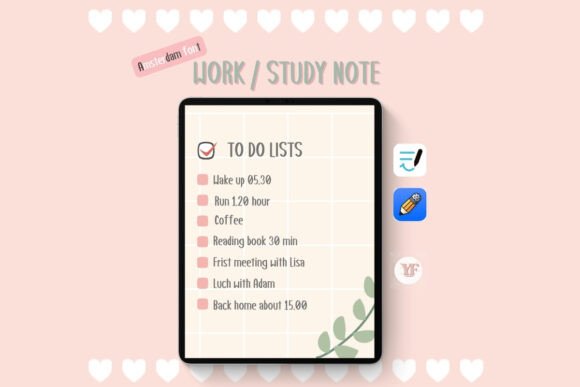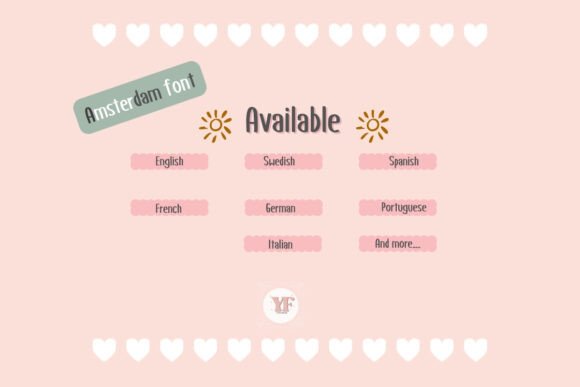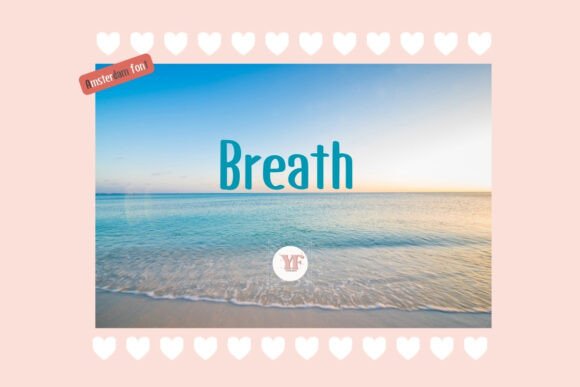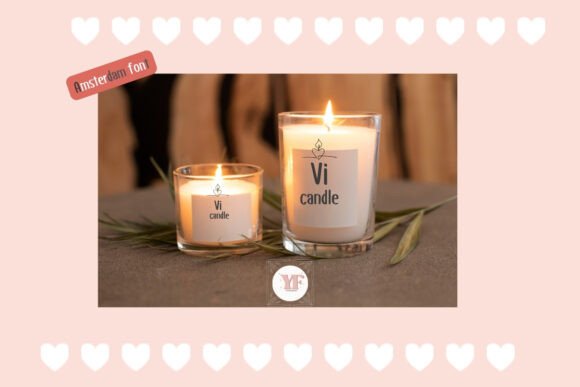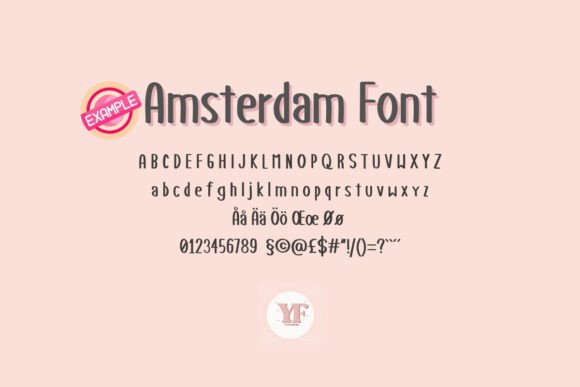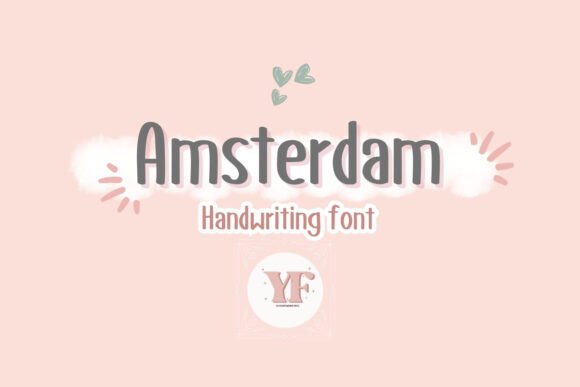
Discover the Elegance of Amsterdam Font: Elevate Your Notes and Writing
Are you tired of using the same old fonts for your notes, journals, and work documents? Look no further than the Amsterdam Font, a stylish handwriting font that is sure to elevate your writing to the next level. With its clean and sleek lines, Amsterdam is the perfect choice for students, professionals, and creatives looking to add a touch of elegance and sophistication to their everyday writing.
The Characteristics of Amsterdam Font
Amsterdam Font is a beautifully designed handwriting font that features pen-like strokes, giving it a natural and effortless look. Its clean and sleek lines make it easy to read, even in small sizes, making it perfect for note-taking, journaling, and planning. The font’s refined yet approachable style ensures that your writing looks professional and polished, whether you’re using it for educational purposes, work documents, or personal projects.
Why Choose Amsterdam Font?
So, why choose Amsterdam Font over other fonts? Here are just a few reasons:
• Readability: Amsterdam Font is designed to be easy to read, even for extended periods of time. Its clean lines and pen-like strokes reduce eye strain, making it perfect for students and professionals who spend hours reading and writing.
• Elegance: Amsterdam Font adds a touch of elegance and sophistication to your writing, making it perfect for formal documents, journals, and planners.
• Versatility: Amsterdam Font is versatile and can be used in a variety of settings, from educational to professional, and even personal projects.
• Effortless look: The font’s pen-like strokes give it a natural, effortless look that makes your writing look like it was written with a pen.
Who Can Benefit from Amsterdam Font?
Amsterdam Font is perfect for a wide range of users, including:
• Students: Whether you’re taking notes in class or working on a project, Amsterdam Font is a great choice for adding a touch of elegance and sophistication to your work.
• Professionals: Use Amsterdam Font for work documents, reports, and presentations to add a professional touch to your writing.
• Creatives: Amsterdam Font is perfect for creatives who want to add a touch of elegance and sophistication to their writing, whether it’s for a journal, planner, or personal project.
How to Use Amsterdam Font
Using Amsterdam Font is easy. Here are a few tips:
• Pair it with other fonts: Amsterdam Font pairs well with other fonts, such as sans-serif fonts, to create a visually appealing contrast.
• Use it for headings and body text: Amsterdam Font is perfect for both headings and body text, making it a versatile choice for a wide range of projects.
• Experiment with different sizes: Amsterdam Font looks great in a variety of sizes, from small to large.
Amsterdam Font is a stylish handwriting font that is perfect for anyone looking to elevate their writing to the next level. With its clean and sleek lines, pen-like strokes, and elegant style, Amsterdam Font is sure to become a favorite among students, professionals, and creatives. Whether you’re using it for note-taking, journaling, or work documents, Amsterdam Font is a great choice for adding a touch of sophistication and elegance to your writing.
Key Features of Amsterdam Font
• Stylish handwriting font
• Clean and sleek lines
• Pen-like strokes for a natural look
• Elegant and sophisticated style
• Perfect for students, professionals, and creatives
• Versatile and easy to read